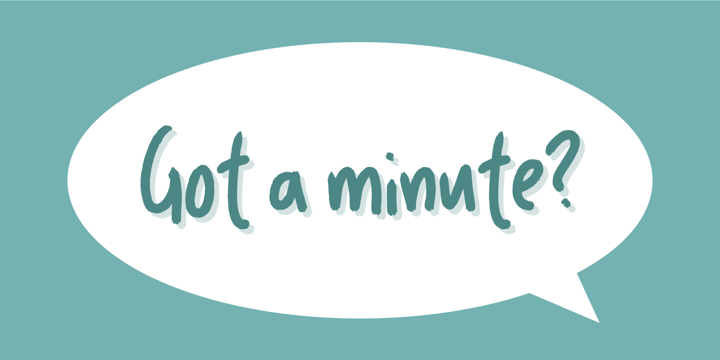
News Junkie
by Bogstav
Handscribbled font that works well with ALL CAPS and lowercase. To avoid repeating letters, I have included both ligatures for double letters and an alternative letter for each lowercase. Also, multilingual support, for all you who needs that!